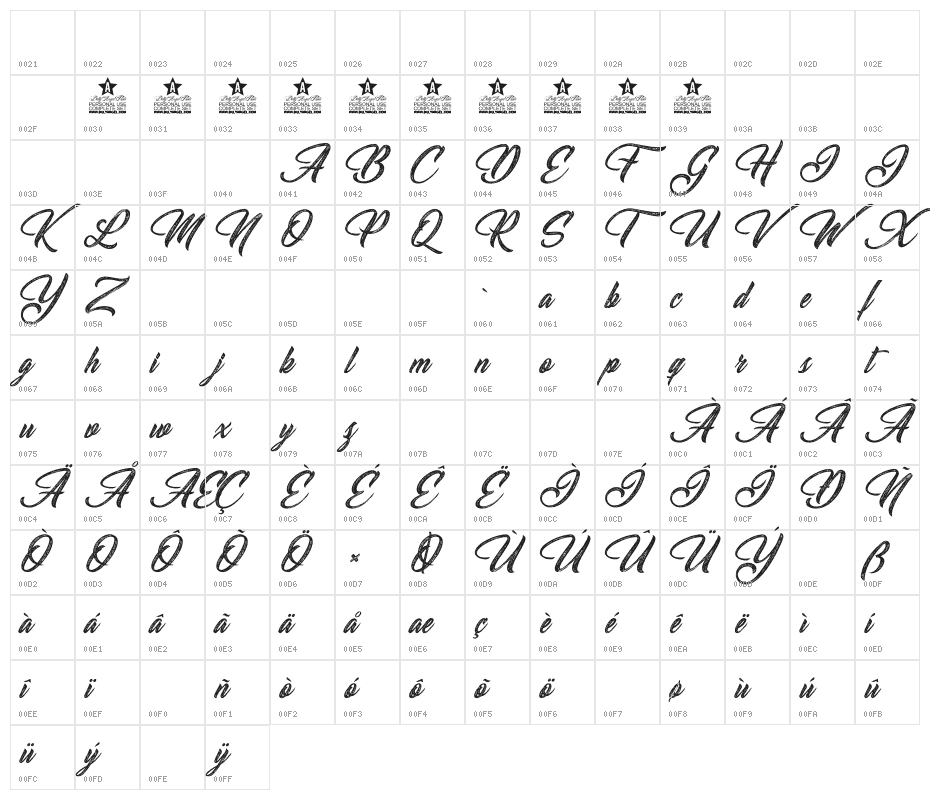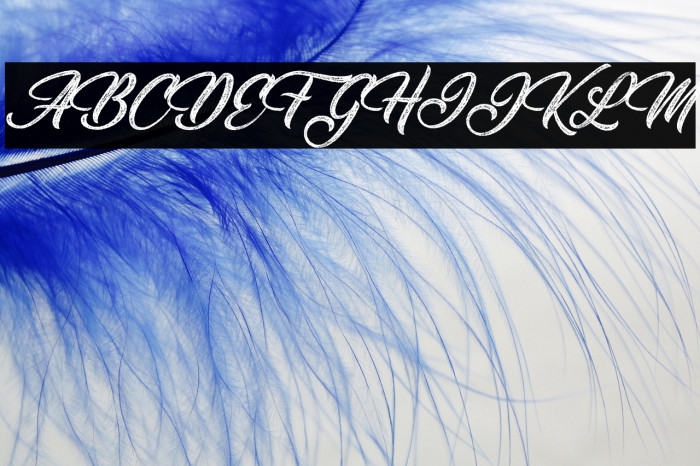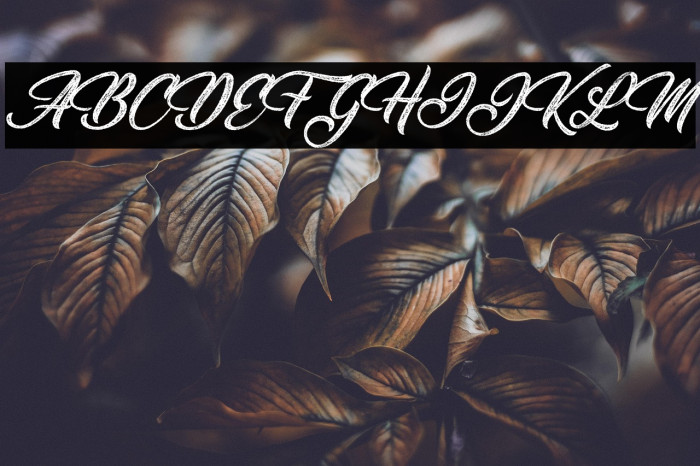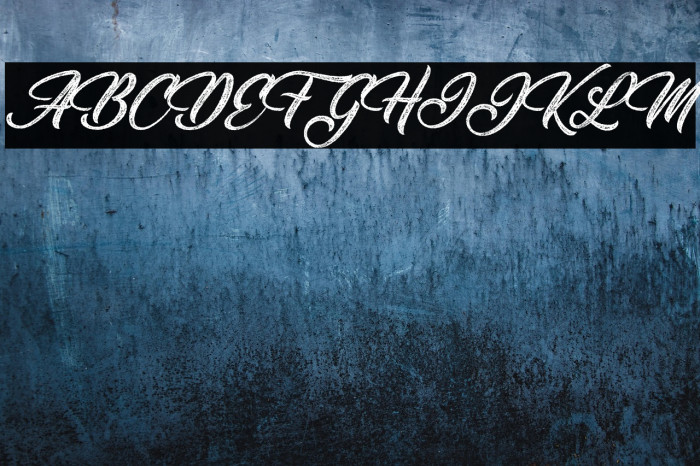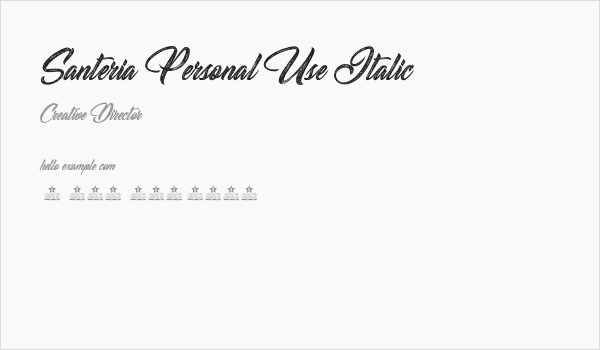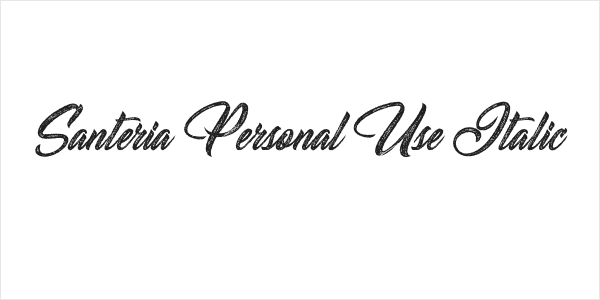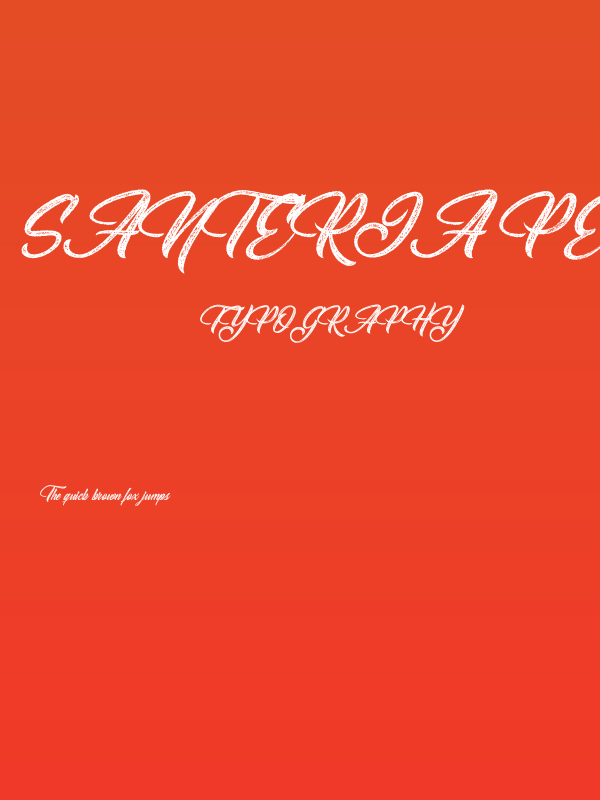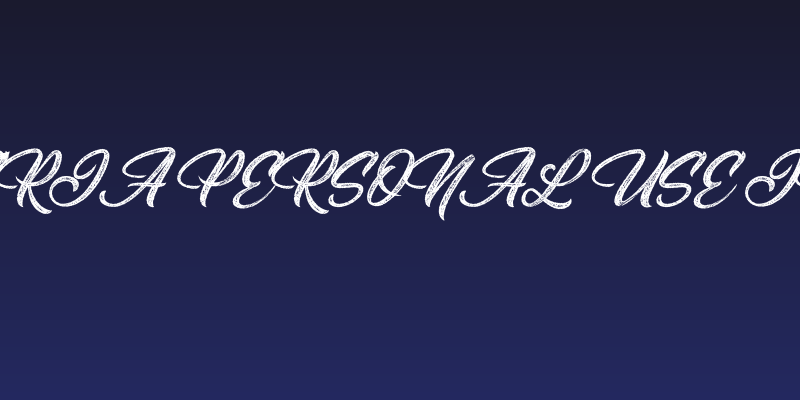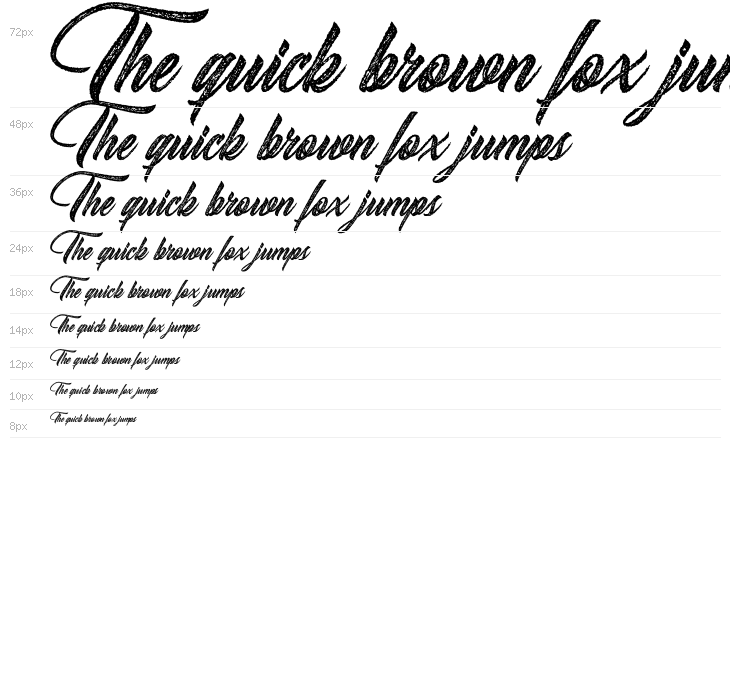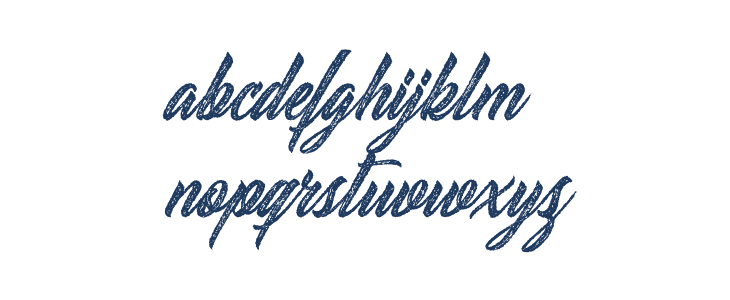
Santeria Personal Use Italic Font
Santeria Personal Use Italic Description
This elegant script font features a flowing, cursive style with a textured, brush-like appearance. The uppercase letters are bold and sweeping, with intricate loops and flourishes that give them a dynamic and artistic feel. The lowercase letters maintain a consistent style, with smooth connections between characters that enhance the font's fluidity. The numbers and special characters are designed to match the overall aesthetic, providing a cohesive look across all glyphs. The font's italic nature adds a sense of movement and grace, making it suitable for designs that require a touch of sophistication and creativity.